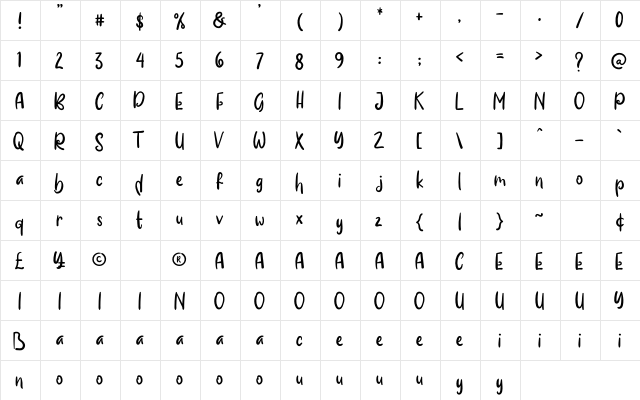
Brownis Steel Regular
Design Context for Brownis Steel Typeface
Brownis Steel is a composed and adaptable typeface that performs quietly and consistently across a wide range of design contexts.